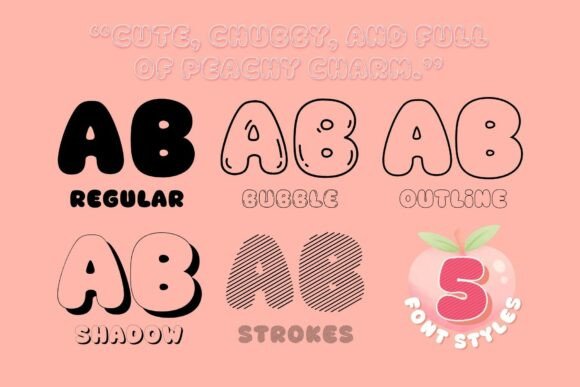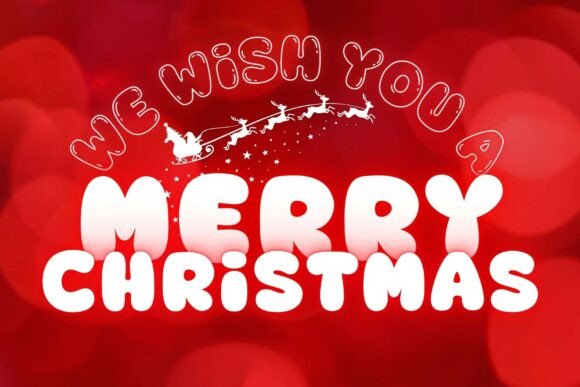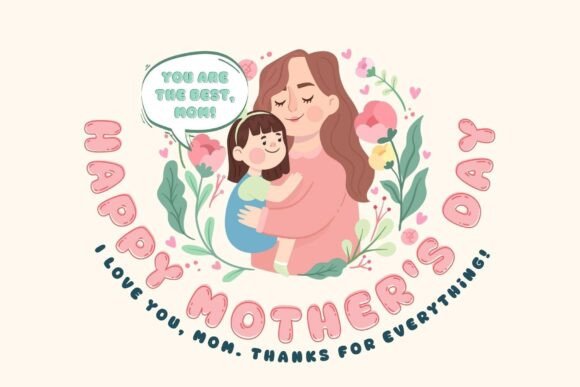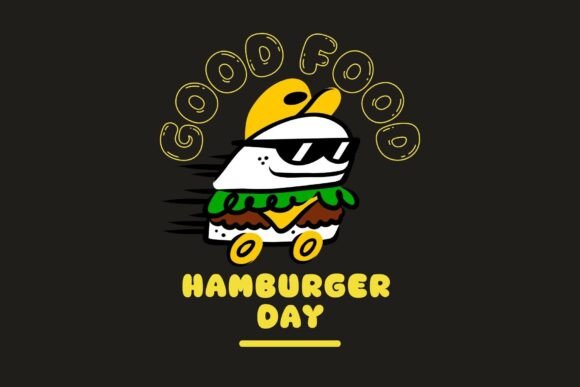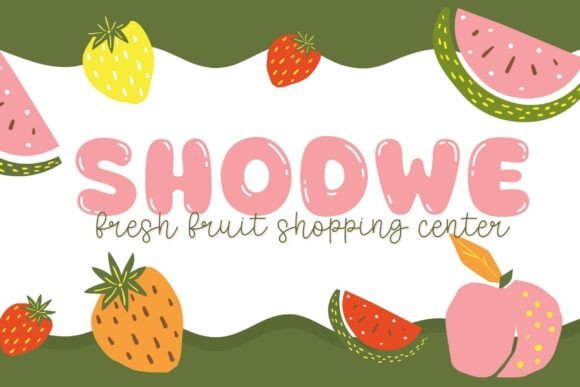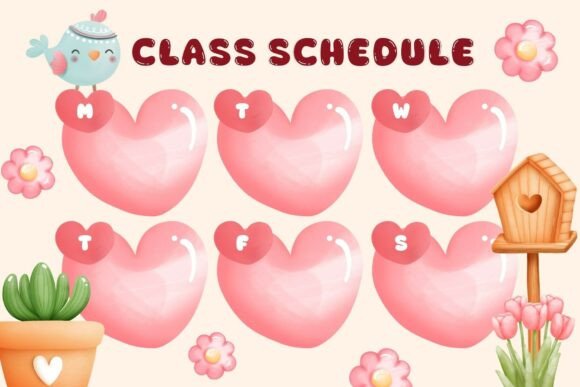
Introduction to Fox Peachi Font
Remember the feeling of excitement when you stumble upon the perfect design element for your creative project? It’s like finding the missing puzzle piece that brings everything together. For designers, this moment is a treasure, and it’s what makes the search for the right font so thrilling. Recently, I discovered the delightful Fox Peachi Font, and I couldn’t wait to share it with you.
This charming font family is a game-changer for designers, offering five delightful styles that are perfect for adding a touch of whimsy to your work. Whether you’re designing for kids, creating branding for sweet treats, or crafting fun quotes, Fox Peachi Font is the ideal choice to sprinkle your work with cuteness and personality.
Key Features of Fox Peachi Font
Honest Review: Fox Peachi Font
I recently stumbled upon the Fox Peachi Font while searching for a high-quality design resource for a creative project. I was immediately drawn to its unique and playful style, perfect for adding a touch of whimsy to any design.
While the Fox Peachi Font is a great addition to any design arsenal, there are a few limitations to keep in mind:
- ⚠️ Limited character set: The Fox Peachi Font only includes a limited character set, which may not be suitable for more extensive designs.
- ⚠️ Not ideal for small text: The Fox Peachi Font is best used for larger text sizes, as it may become difficult to read at smaller sizes.
Overall, I’m impressed with the Fox Peachi Font and would recommend it to designers looking for a fun and high-quality font for their creative projects.